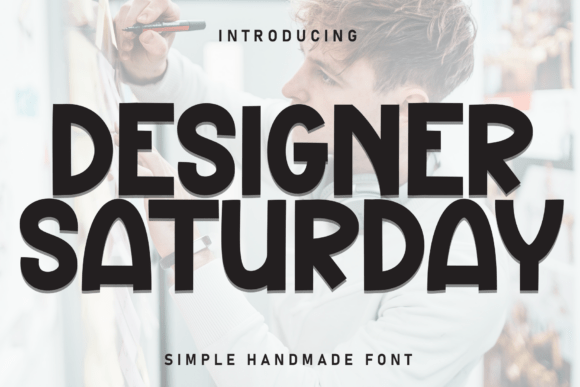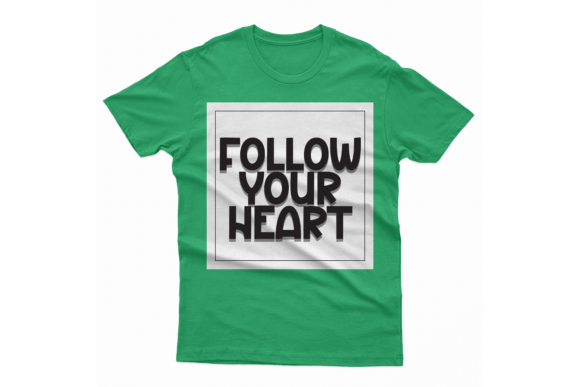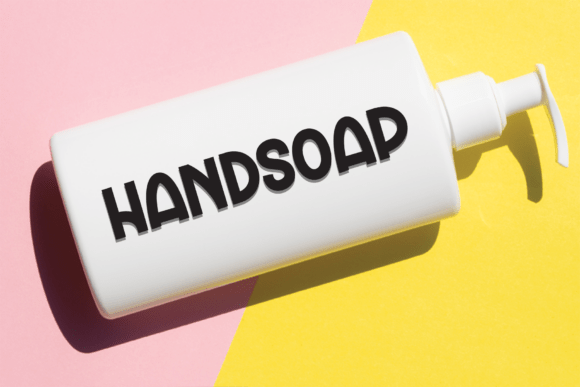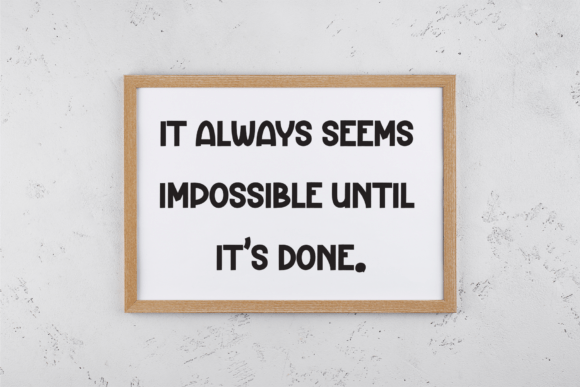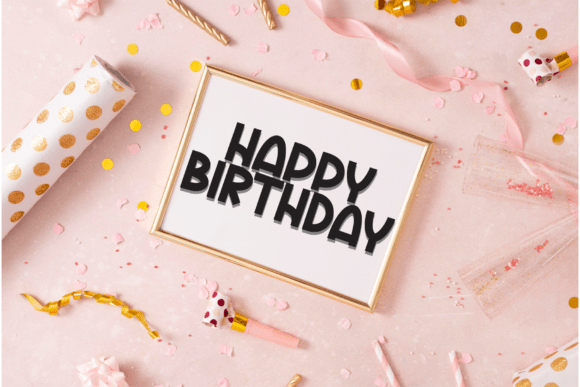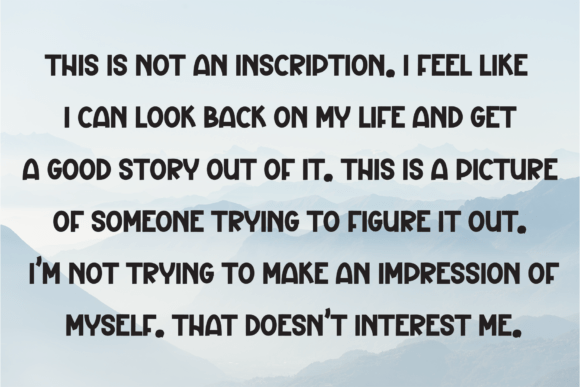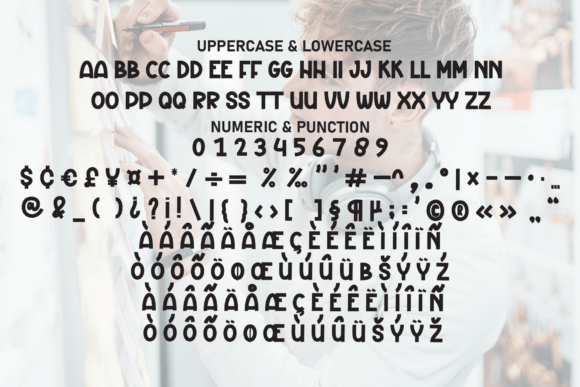
Adding a Personal Touch to Your Designs
Have you ever been brainstorming a new project, and the perfect font just doesn’t seem to be there? The words “inspired” and “authentic” dance in your head, but nothing quite captures the essence of your vision. For designers, finding the right font can be a challenge – one that can make or break the overall aesthetic of a project.
That’s where the Designer Saturday Font comes in – a charming handwritten display font that brings warmth and whimsy to any design. With its playful strokes and casual flow, it’s perfect for quotes, greeting cards, branding, and more. Whether you’re crafting for kids or designing a modern logo, this font adds a personal, heartfelt touch that’s sure to engage your audience.
Designer Saturday Font Key Features
- Unique Characteristics: The font features a unique blend of modern and vintage elements, with bold lines and elegant curves, making it perfect for creative projects.
- Font Style: The font comes in Regular and Bold styles, providing versatility for different design needs.
- Language Support: The font supports a wide range of languages, including Latin, Cyrillic, and Greek alphabets.
Designer Saturday Font Review
First of all, I want to say that I’m impressed with the unique style of Designer Saturday Font ✨. The bold and playful design is perfect for creating a fun and energetic atmosphere in your designs. The font has a nice balance between modern and vintage elements, making it suitable for a wide range of projects.
The font is also very versatile, and I appreciate the number of languages it supports ✨. It’s a great option for designers who need to create content for a global audience.
However, I do have a few concerns about the font’s limitations ⚠️. The font’s bold weight can sometimes be too overpowering, and it may not be suitable for designs where subtlety is key. Additionally, the font’s italic styles can be a bit inconsistent, which may require some extra tweaking to get right.
Overall, I think Designer Saturday Font is a great addition to any designer’s toolkit. While it may have some limitations, its unique style and versatility make it a great option for a wide range of projects.
Here are some key pros and cons:
- Unique and playful design ✨
- Supports a wide range of languages
- Can be overpowering in bold weight ⚠️
- Italic styles can be inconsistent
Getting the Most Out of the Font
To get the most out of the Designer Saturday font, try using it in combination with bold or italic styles to add emphasis to your text.
You can also use the font in conjunction with other design elements, such as graphics or images, to create a visually appealing design.
The Designer Saturday font is well-suited for use in a variety of designs, including:
- Blog posts and articles
- Marketing materials, such as brochures and flyers
- Social media graphics and posts
Open Sans is a modern sans-serif font designed for digital media. It’s highly legible and suitable for use in body text, headings, and titles. Open Sans is a free font, offering a wide range of weights and styles. Compared to Designer Saturday Font, Open Sans is more neutral and has a cleaner feel.